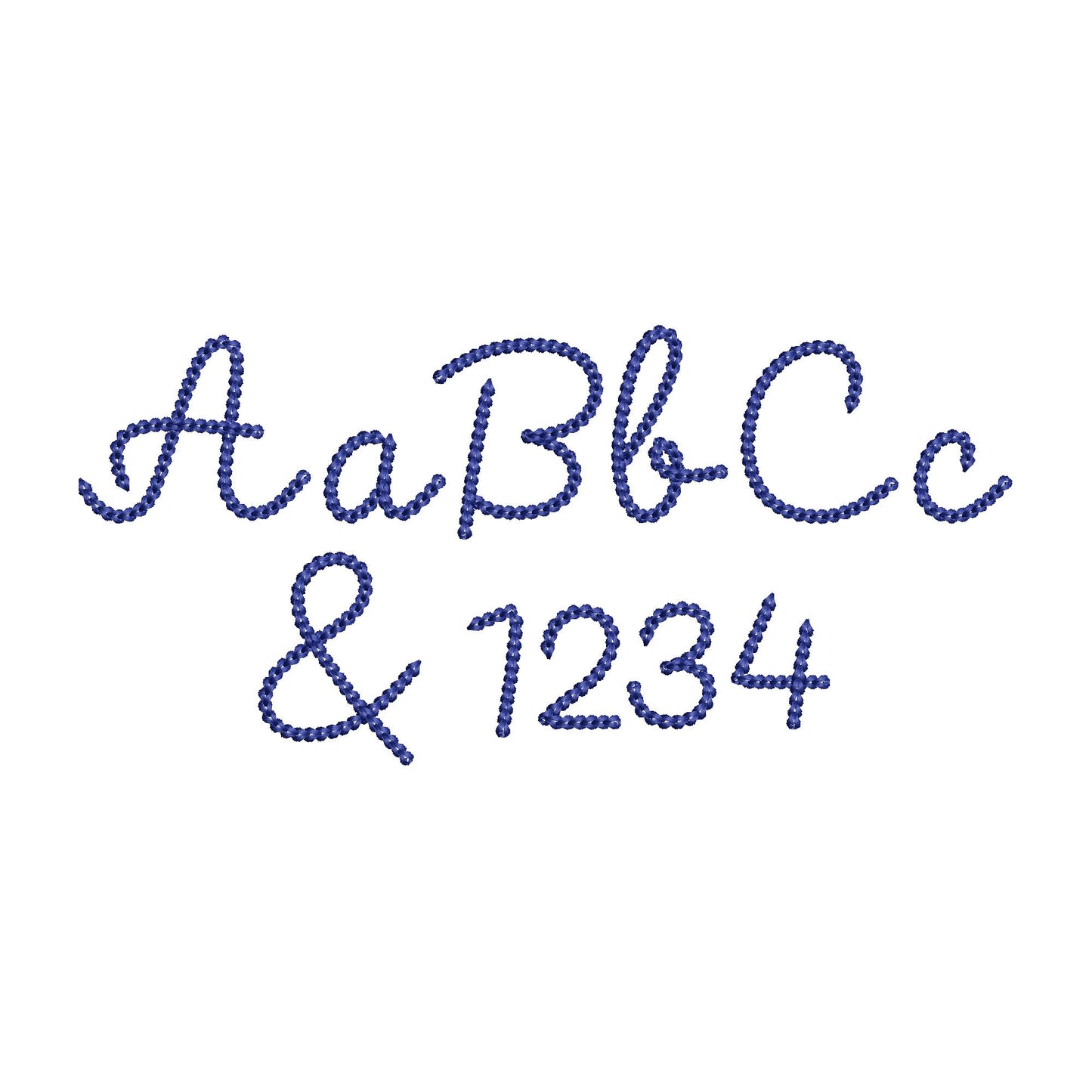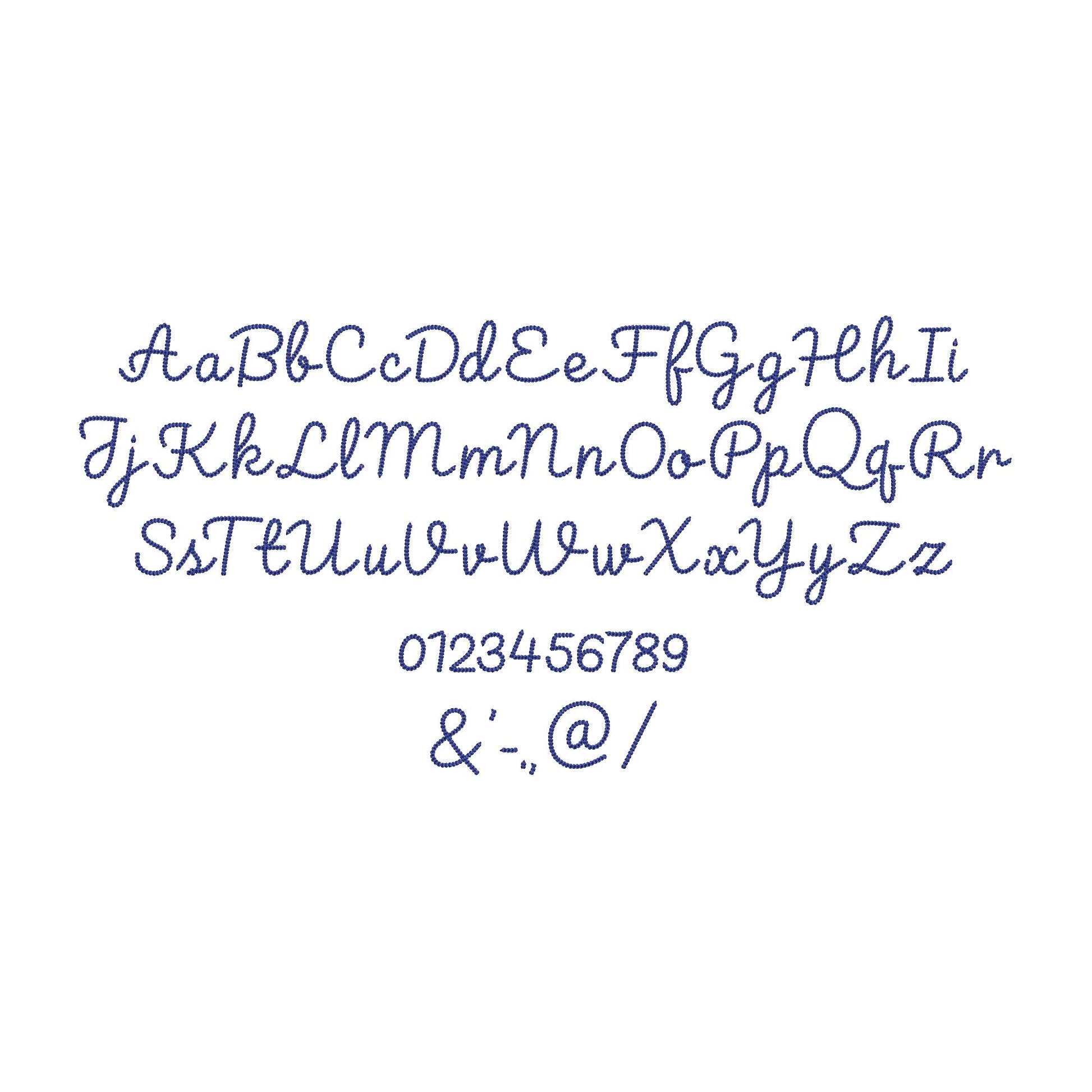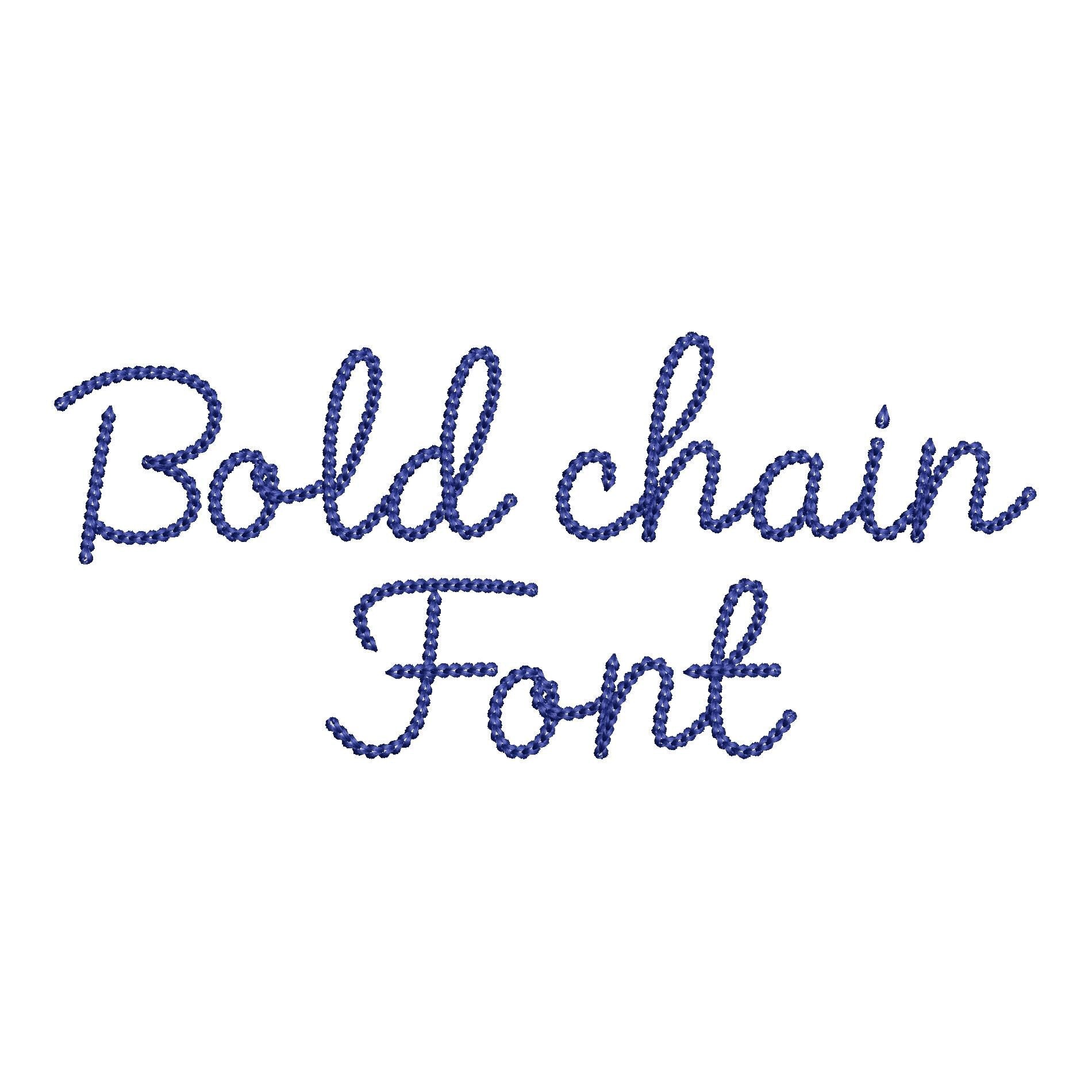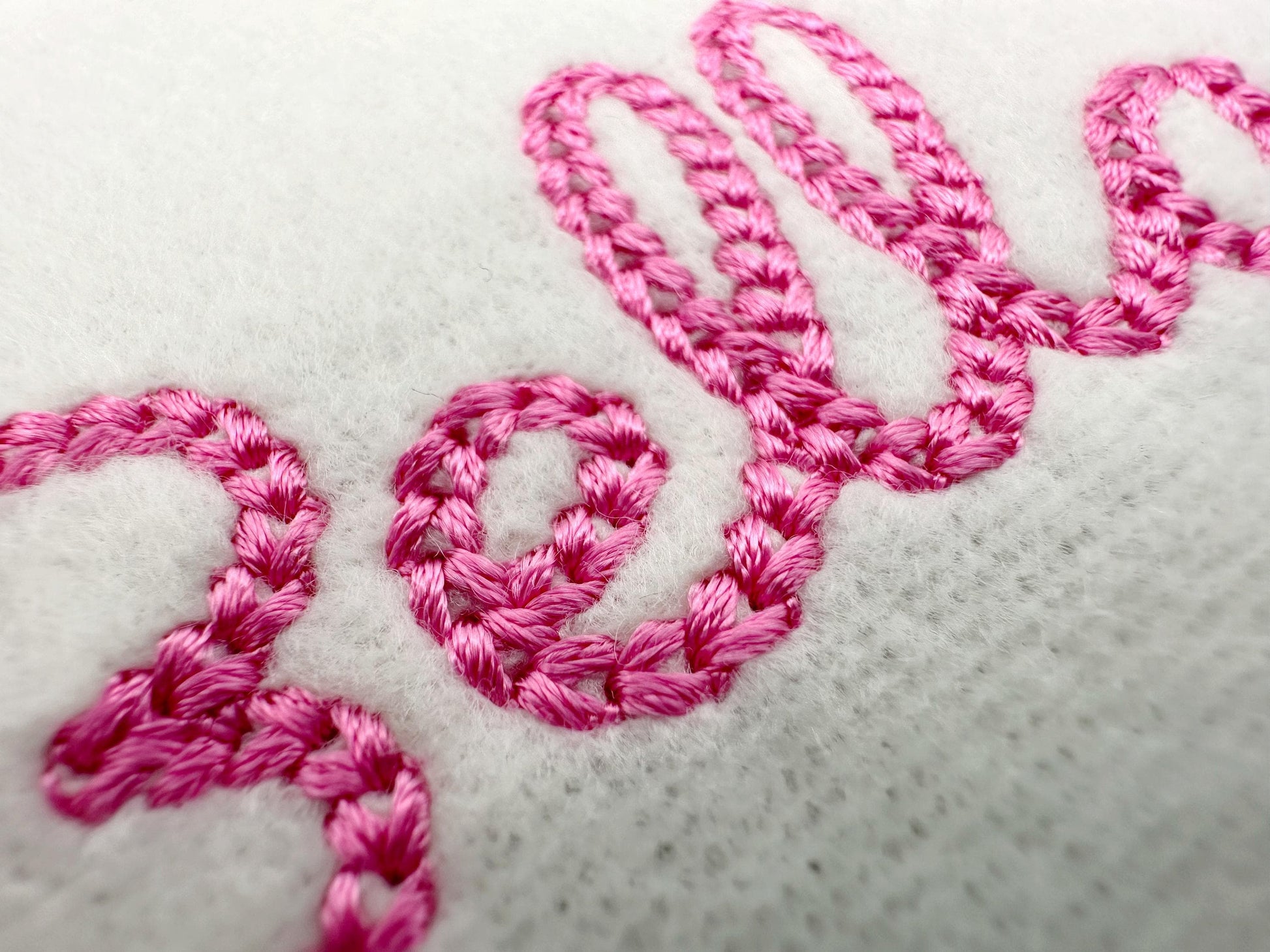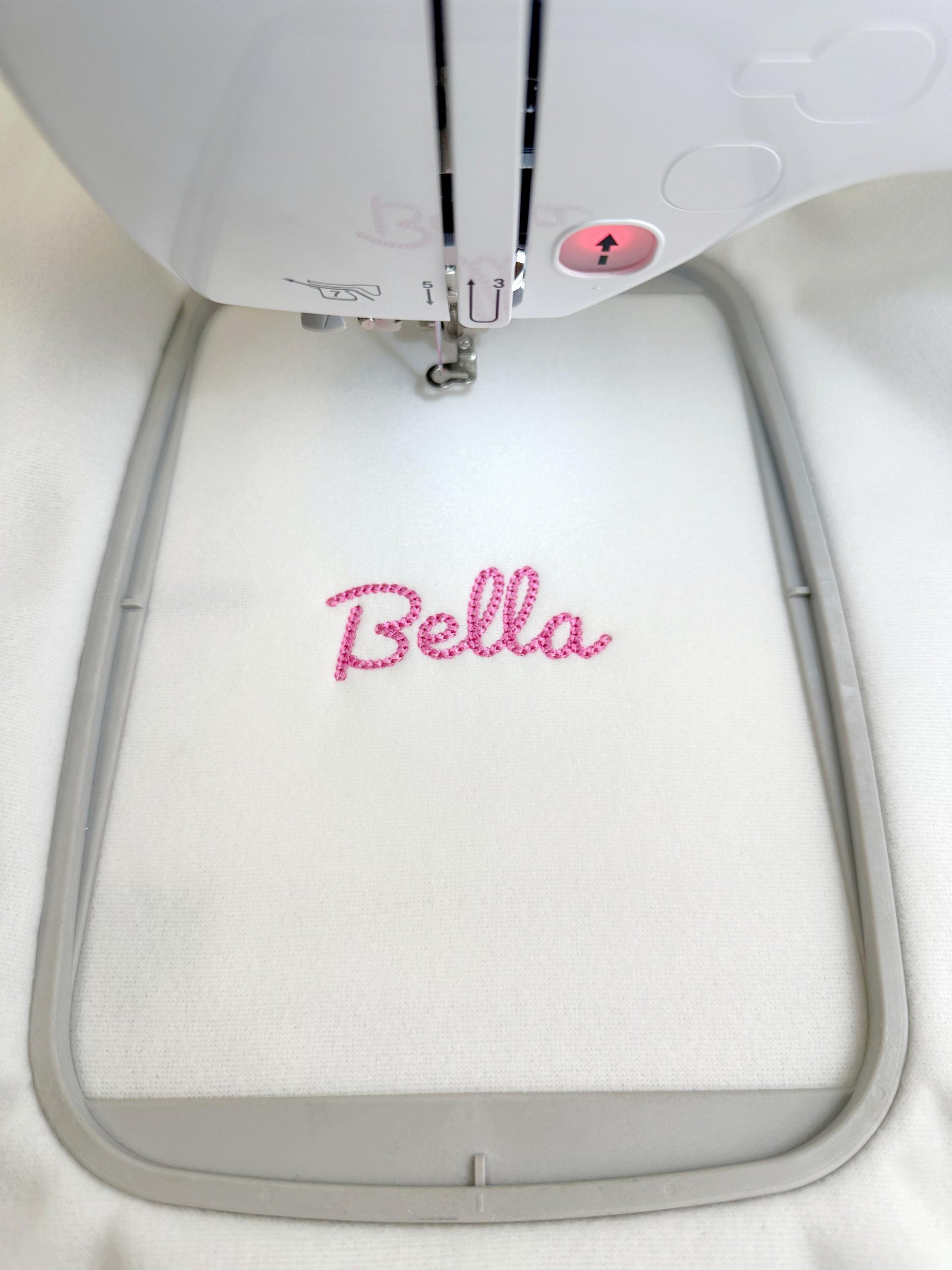
Extra Bold mini Chain Font Paloma
Sizes (inches): 1", 1.2", 1.5", 2", 2.4", 3"
Or click to open the linkAn extra bold chain stitch script font. Great for kids' names, monograms and cozy gifts.
The letters come in six sizes: 1, 1.2, 1.5, 2, 2.4 and 3 inches. A thick chain stitch gives the handwritten letters a bold, handmade look. Includes uppercase and lowercase letters A to Z, numbers 0 to 9 and punctuation.
- Extra bold chain stitch script font
- 6 sizes, 1 to 3 in